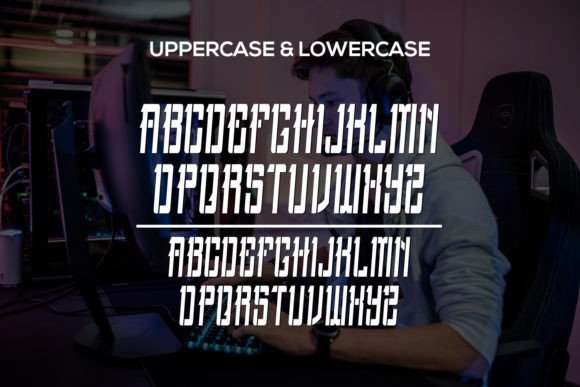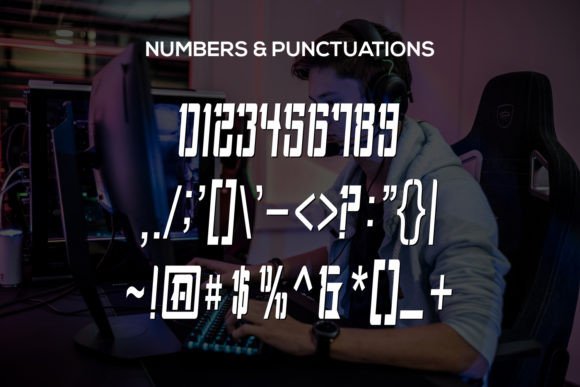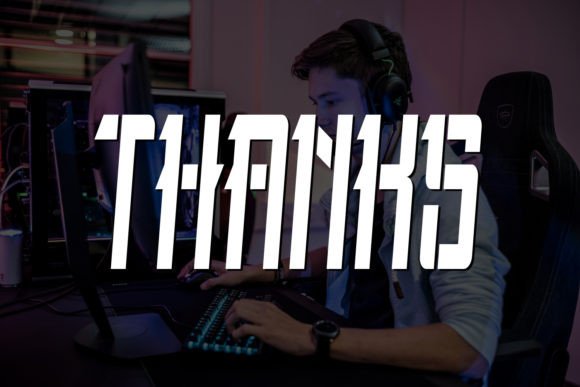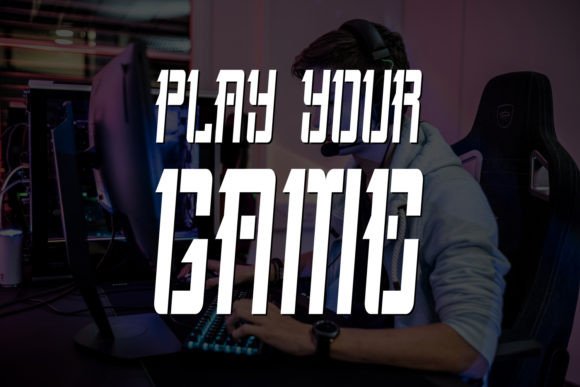
Introduction to Neotrans Font
Neotrans is a cool and modern display font.
Key Features of Neotrans Font
Why Choose Neotrans Font?
Neotrans Font offers exceptional quality and versatility, making it a valuable addition to your design toolkit. Whether you’re creating for personal projects or commercial use, Neotrans Font delivers professional results.